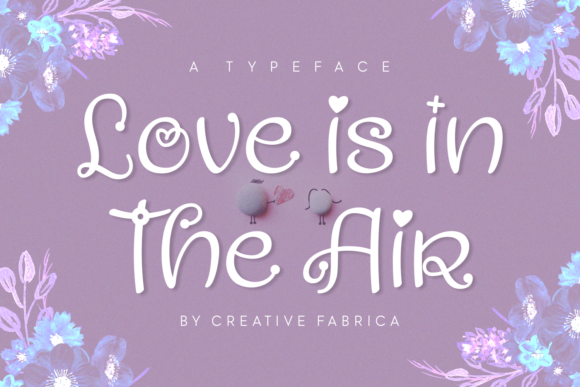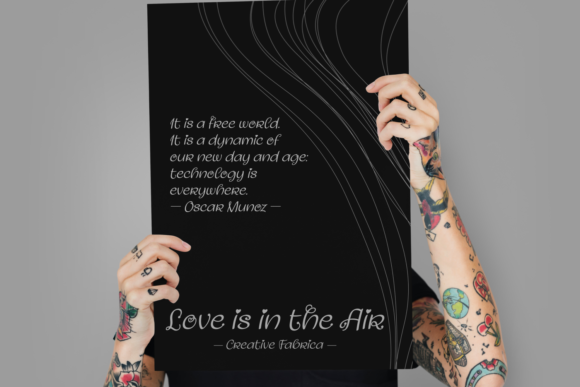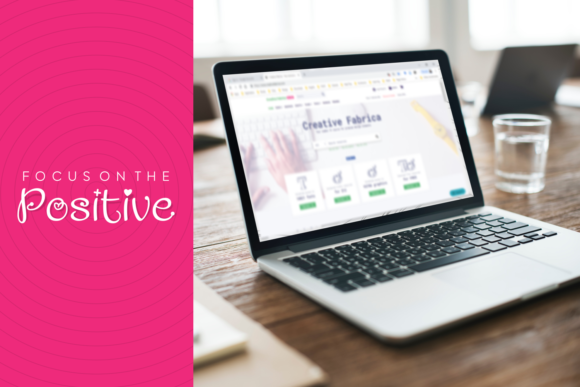
Love is in the Air Font
About Love is in the Air Font
Love is in the Air is the ultimate Valentine’s Day font.
Do cupids work, and add some love in an instant. The font comes decorated with small embellishments, such as hearts. Making it the perfect font for Valentines Day designs, but also Weddings, Anniversaries, Birthdays and much more.